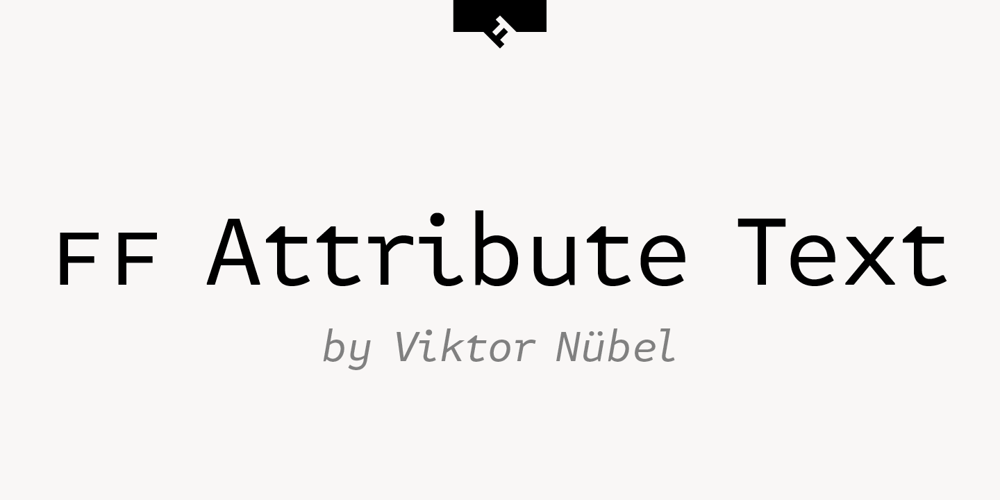
FF Attribute Text Font Family was designed by Viktor Nübel and published by FontFont. FF Attribute Text contains 14 styles and family package options. FF Attribute™ Text is a proportional design with a faux monospace appearance. It has an industrial strength, minimalist vibe, making it perfect for attention getting, theme-based headlines, posters, banners and navigational links. And, because it is such a robust family, FF Attribute can also be used for branding of blogs, games, web sites and tech products. FF Attribute comes in two families; Mono and Text. The Mono is a fixed width (monospace) design, while the Text is a proportional design. FF Attribute was, in fact, initially designed for the use in code editor software. Its seven roman and italic monospaced weights and extended character set supporting a many languages, also make it a powerful communications tool. But this is only the tip of the iceberg. In addition to the monospaced version, where all characters share a fixed width, there is also a proportional, “faux monospaced” version: FF Attribute Text. The Text family keeps the visual character of a monospaced typeface, but wide letters are given more space while narrow characters have been drawn with correct proportions and spacing. FF Attribute Text looks monospaced – but it’s not. Drawn by Viktor Nübel, FF Attribute Text’s 14 designs, huge character set, including box-drawing characters and user interface-icons, make it the Swiss Army Knife® of monospaced fonts.